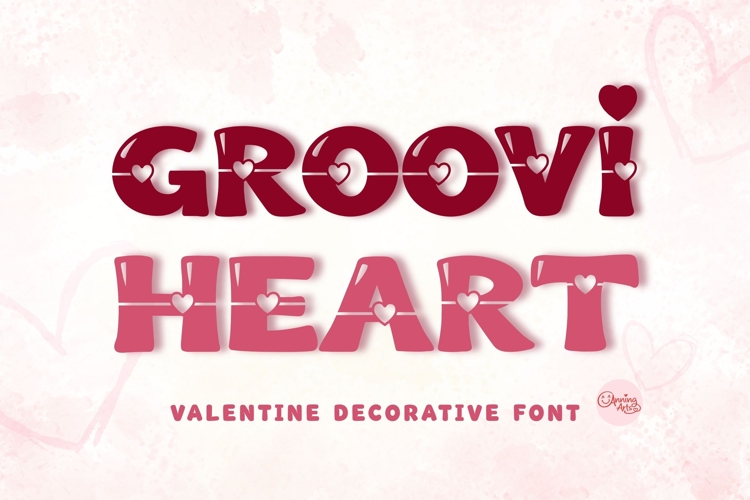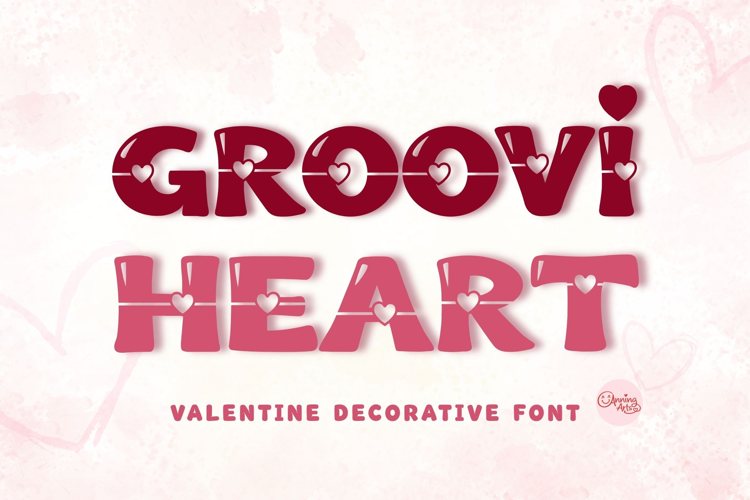
Groovi Heart is a cute Valentine display font with adorable heart details embedded in every letter.
Its bold, rounded shapes and playful groovy style make it perfect for cheerful love-themed designs.